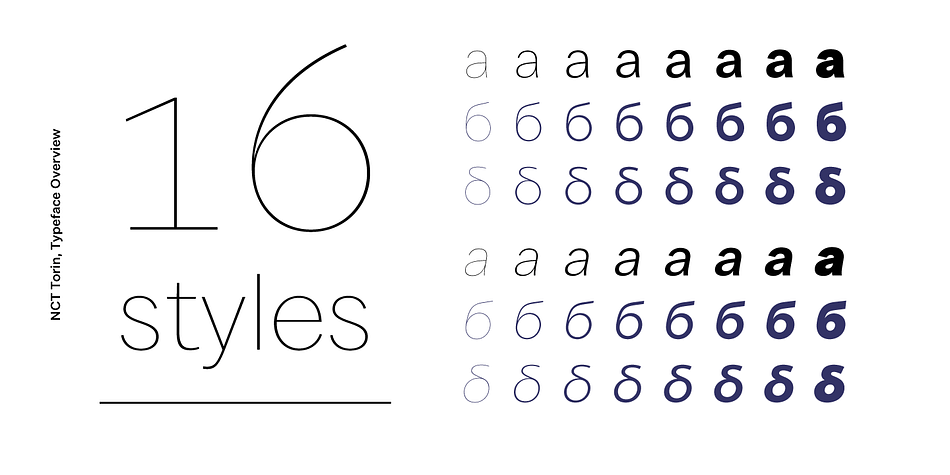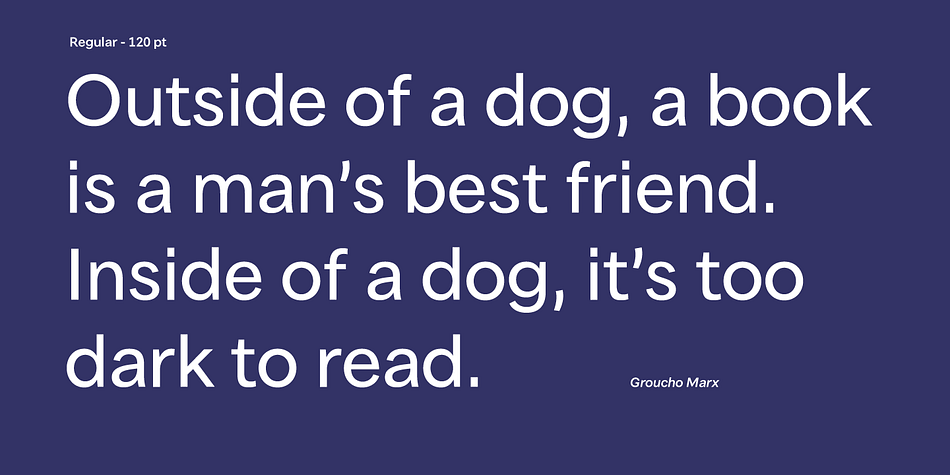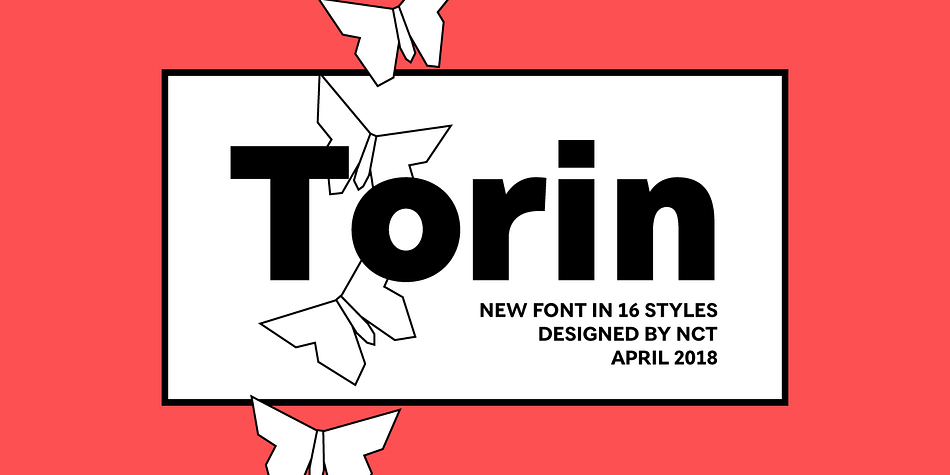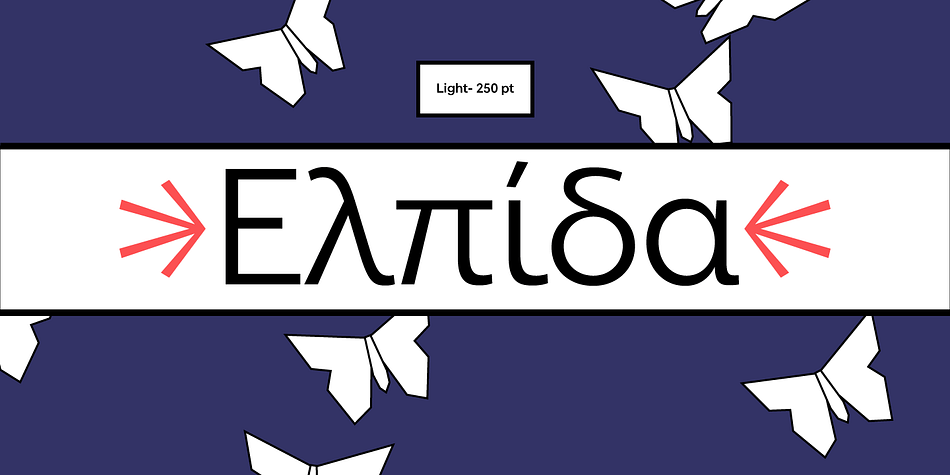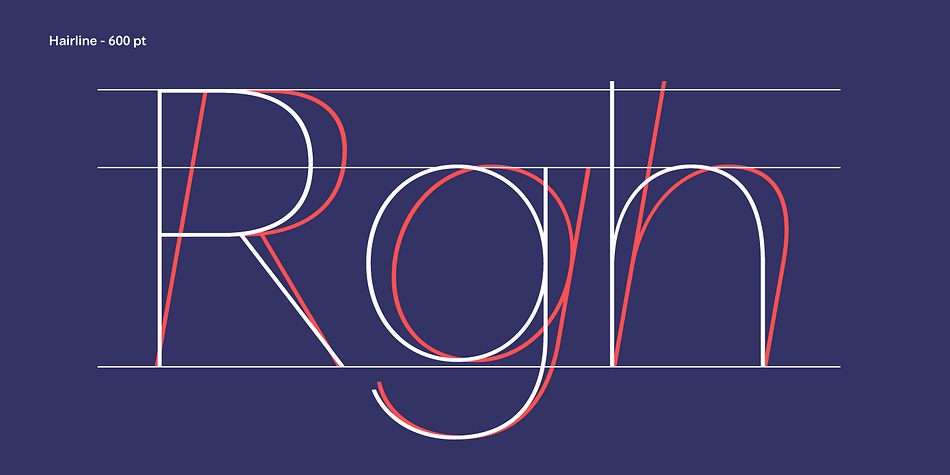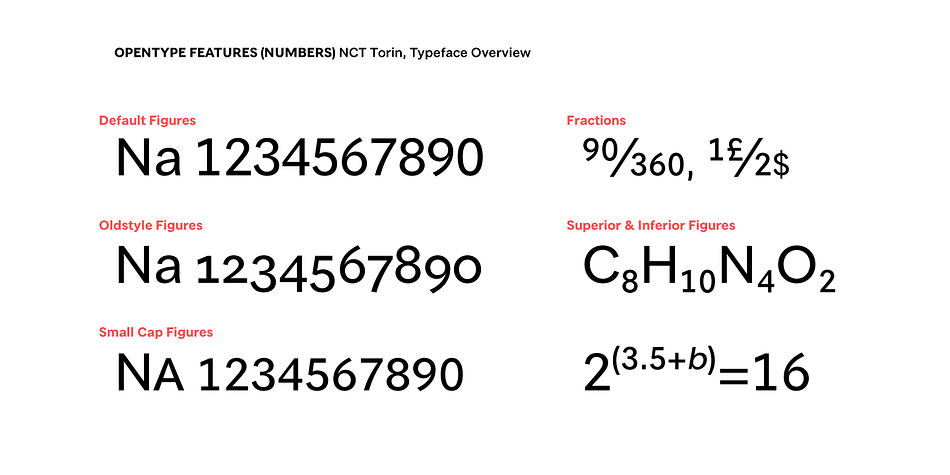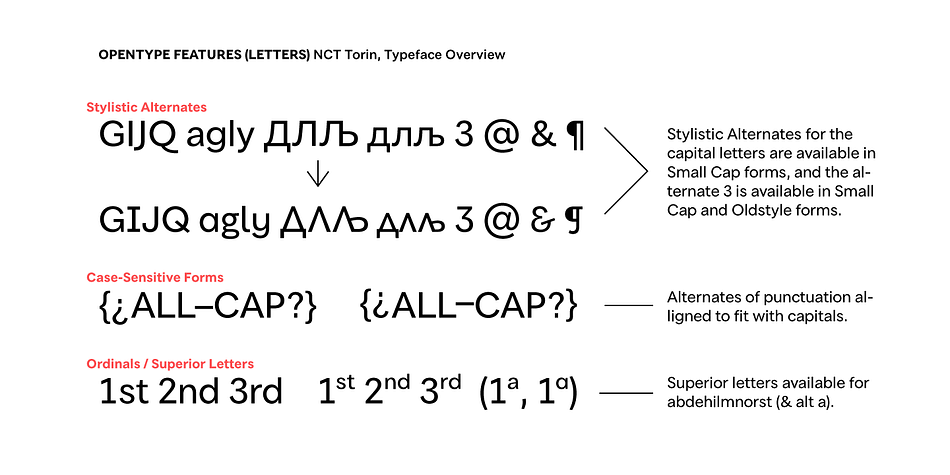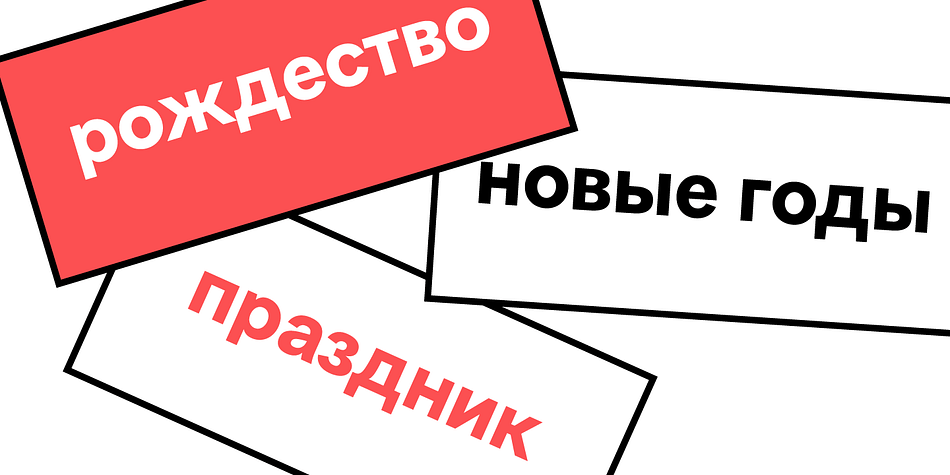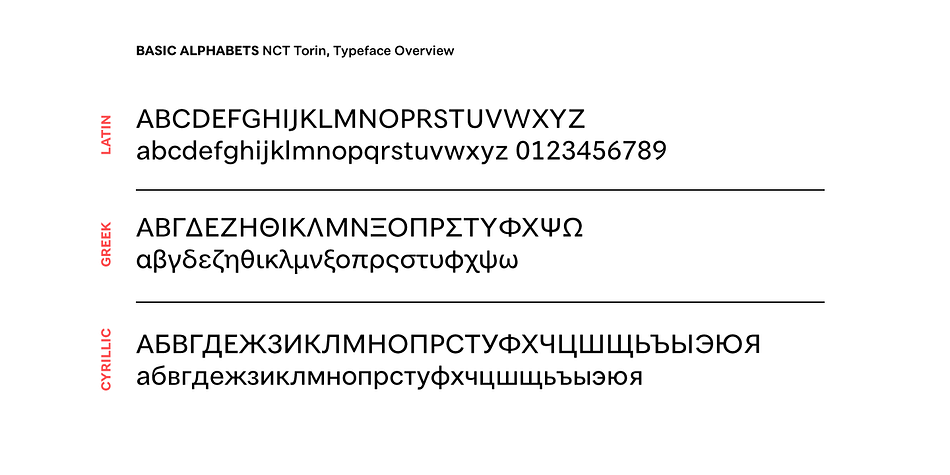
NCT Torin is a sans serif font family. This typeface has sixteen styles and was published by NCT.
NCT Torin is a friendly sans-serif font in 16 styles. It supports all major European languages, as well as Vietnamese, Greek, and Russian with additional Cyrillic support. Includes many OpenType features for alternate numbers and letters, as shown in the poster images.